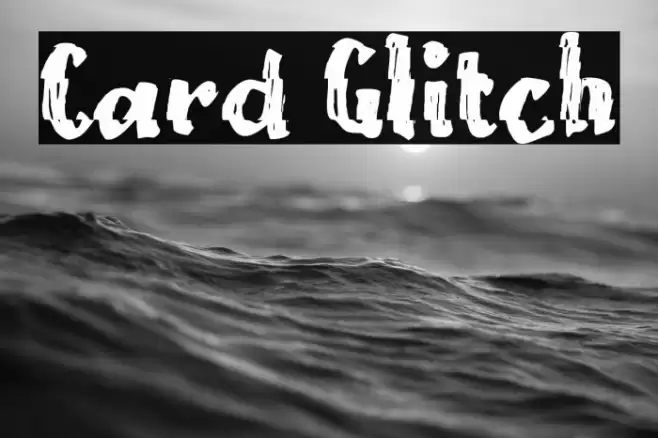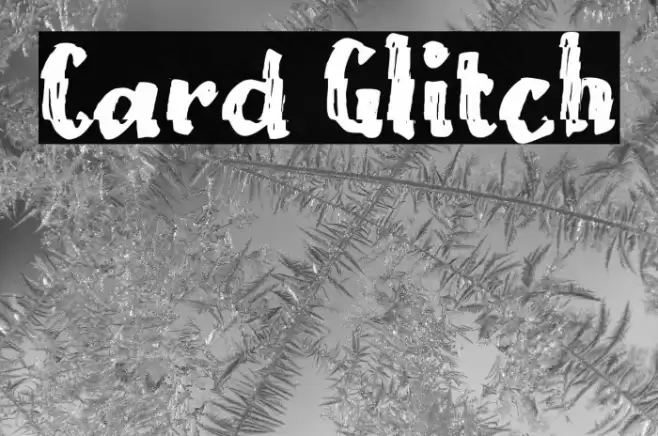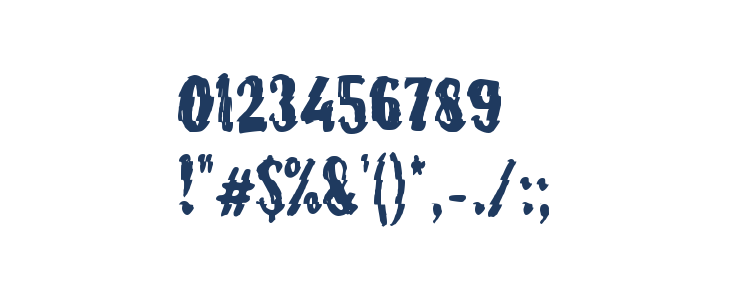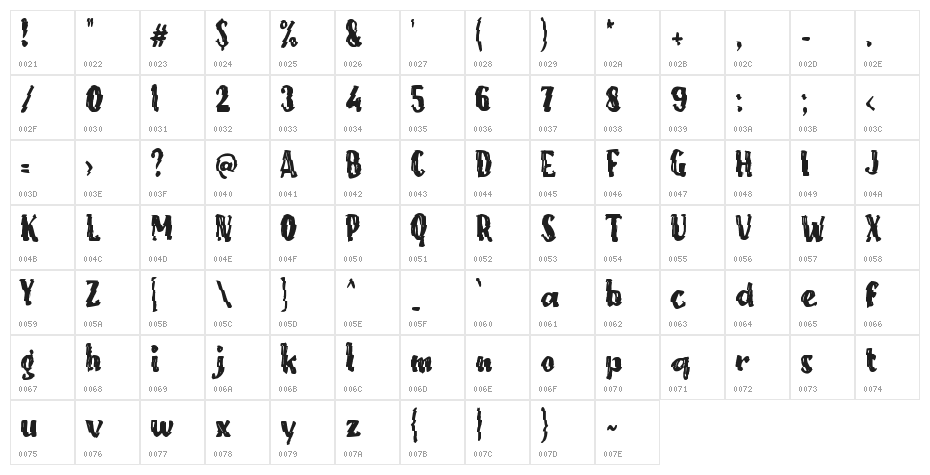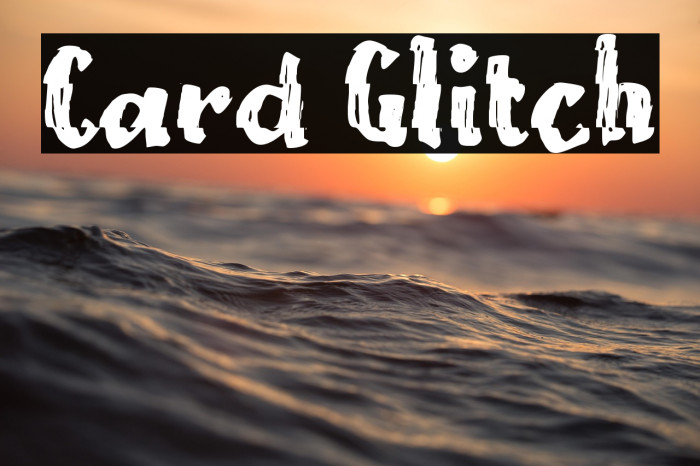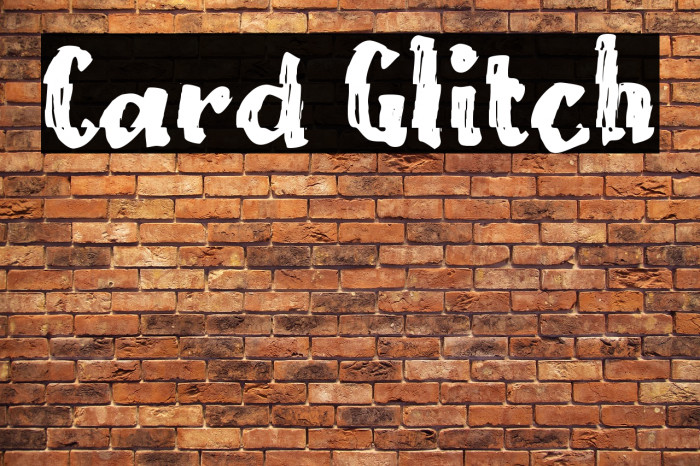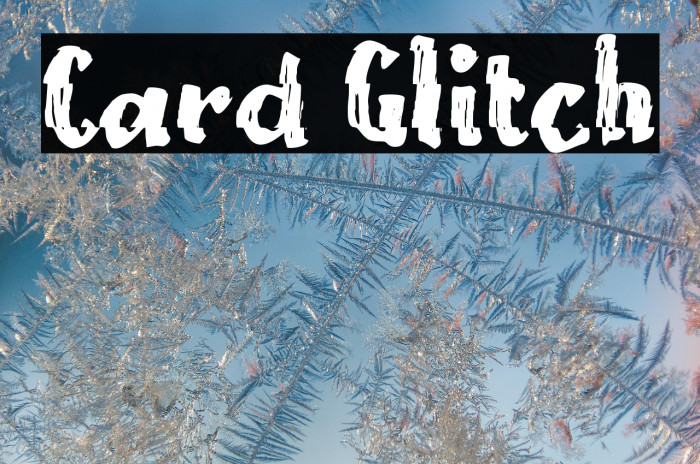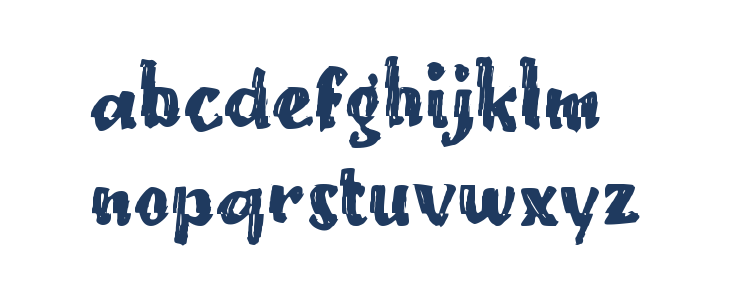
Card Glitch Font
Card Glitch Description
This font features a bold, distressed style with a glitch-like appearance, giving it a unique and edgy look. The characters are irregular and appear as if they have been distorted or eroded, adding a sense of movement and chaos. The uppercase and lowercase letters maintain a consistent weight, while the numbers and special characters follow the same distressed aesthetic. This font's design is perfect for projects that require a bold statement or a modern, unconventional touch.
A bold, distressed font with a glitch-like, edgy appearance from Distorted Eroded fonts.
- Proposed Projects: Ideal for album covers, poster designs, digital art, and branding that requires a modern, edgy look.
- Overall Style: Modern, Edgy